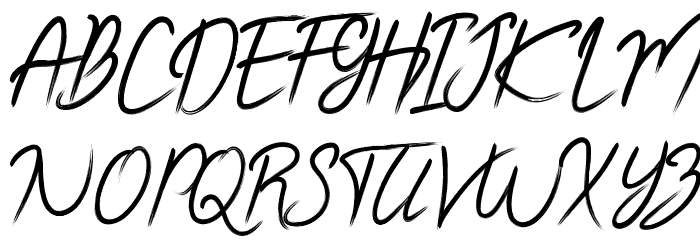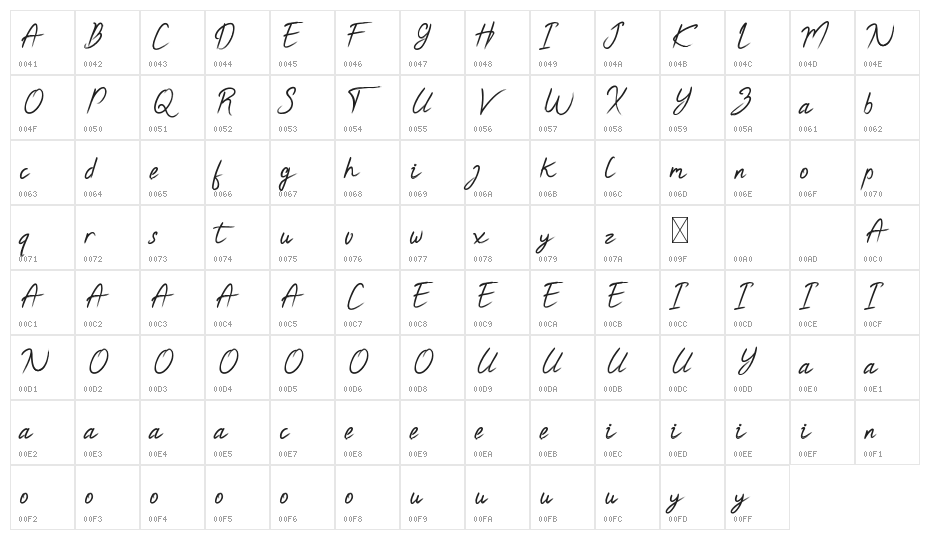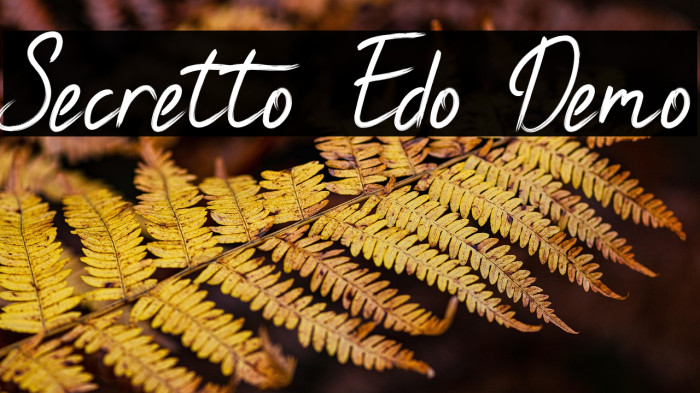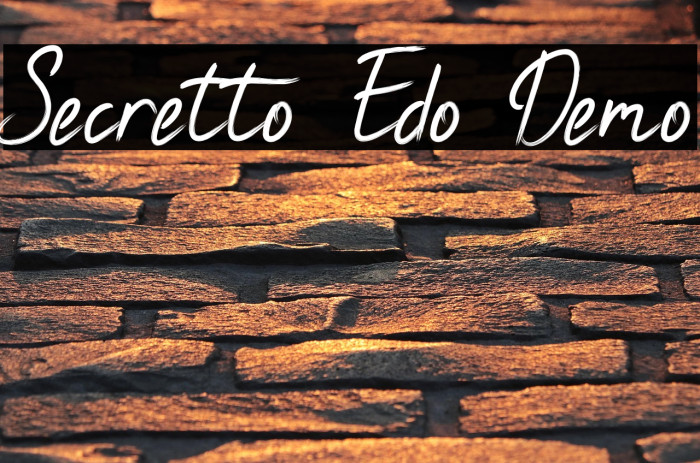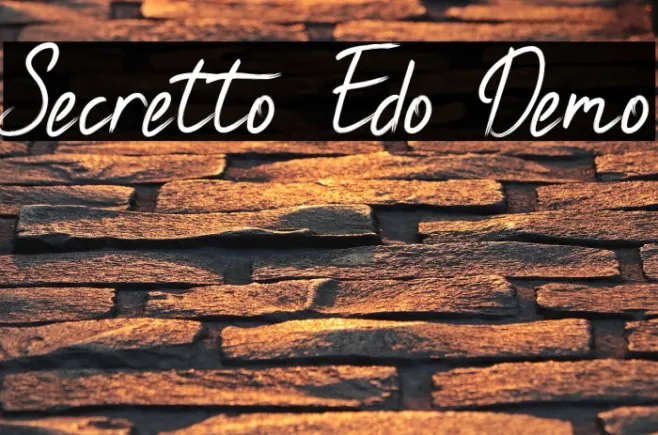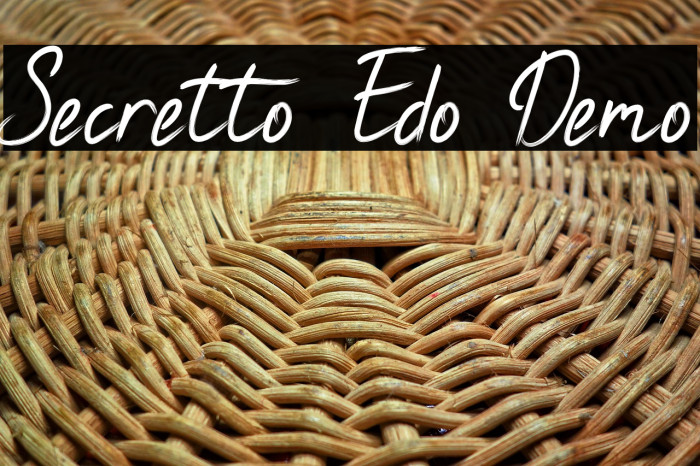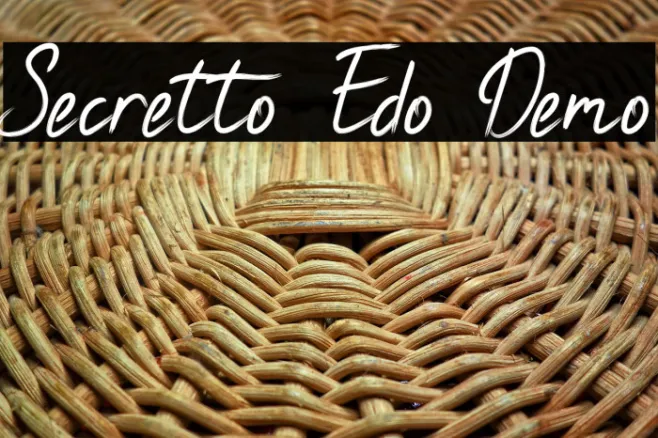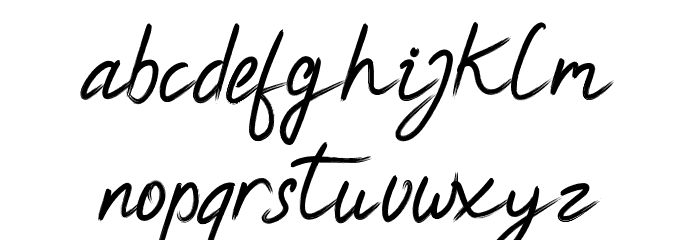
Secretto Edo Demo Font
Secretto Edo Demo Description
This font features a dynamic and expressive script style, characterized by fluid, sweeping strokes that convey a sense of motion and elegance. The letters are interconnected, with a natural flow that mimics the look of handwriting. The uppercase letters are bold and prominent, while the lowercase letters maintain a consistent rhythm and balance. The overall design is both artistic and legible, making it suitable for creative projects that require a personal touch. The font's unique style is enhanced by its varying stroke thickness, adding depth and visual interest.
| Proposed Projects | Ideal for wedding invitations, greeting cards, branding, and artistic posters. |